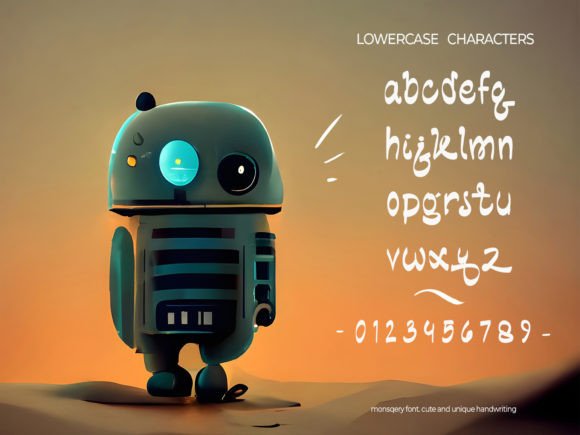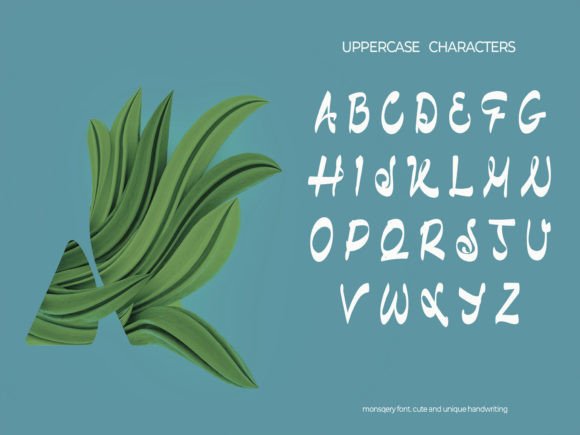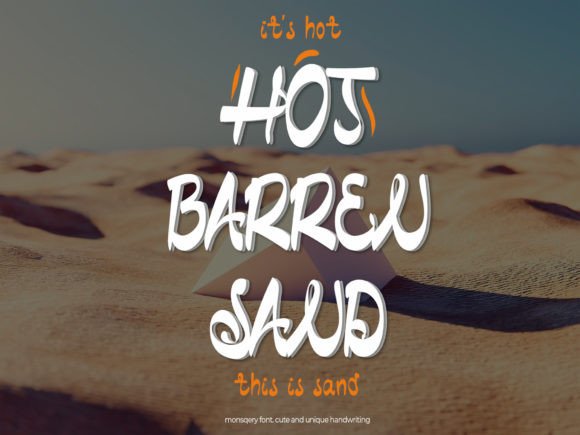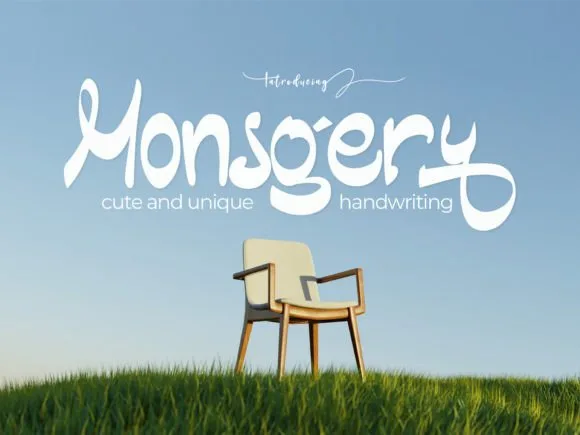
Monsqery Font
About Monsqery Font
Monsqery is an elegant, simple, and beautiful handwritten font. It is cute and unique, perfect for logo designs, magazines, social media, brochures, and many more.